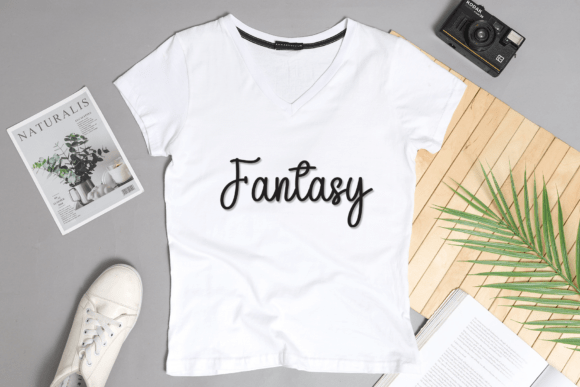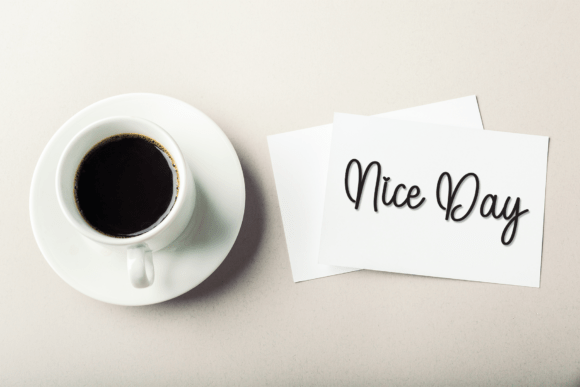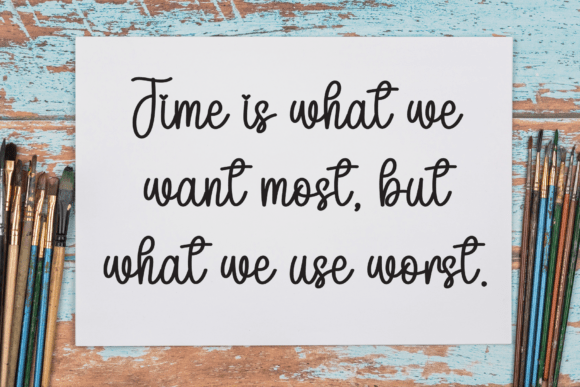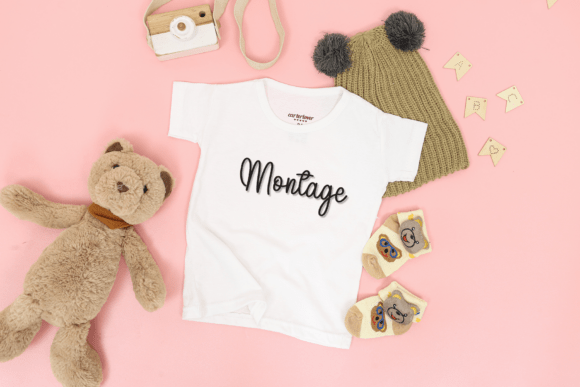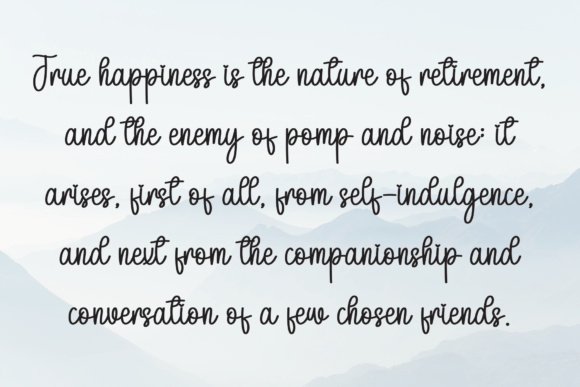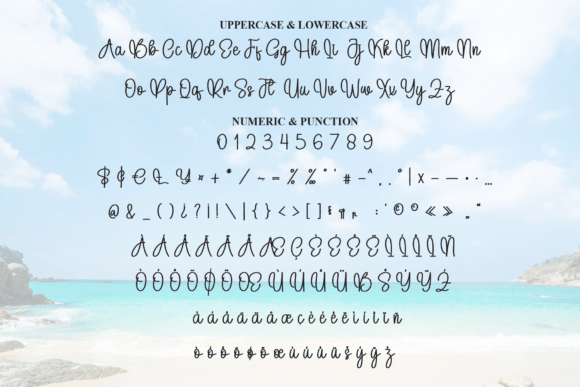
Introducing Beach Font: A Sweet and Friendly Handwritten Display Font
Are you looking for a font that can add a touch of warmth and personality to your projects? Look no further than the Sweet and Friendly Handwritten Display Font, also known as Beach Font. This charming typeface is perfect for designers and crafters who want to create unique and eye-catching designs that stand out from the crowd.
The Perfect Font for Whimsical Designs
The Sweet and Friendly Handwritten Display Font is a playful and endearing font that is ideal for crafting wedding invitations, greeting cards, and other designs that require a dash of whimsy. Its handwritten style introduces an authentic, intimate feel that can elegantly transform your ordinary projects into extraordinary masterpieces.
Key Features of Beach Font
• Handwritten style: The Sweet and Friendly Handwritten Display Font boasts a beautiful handwritten style that adds a personal touch to your designs.
• Playful and endearing appeal: This font has a playful and endearing appeal that makes it perfect for designs that require a touch of whimsy.
• Perfect for wedding invitations and greeting cards: The font’s elegant and intimate feel makes it ideal for crafting wedding invitations and greeting cards.
• Easy to read: The font is easy to read, making it perfect for designs that require a clear and legible font.
Why Choose Beach Font?
There are many reasons why you should choose the Sweet and Friendly Handwritten Display Font for your projects. Here are a few:
• Unique and eye-catching: This font is unique and eye-catching, making it perfect for designers and crafters who want to create designs that stand out from the crowd.
• Personal touch: The font’s handwritten style adds a personal touch to your designs, making them more relatable and engaging.
• Versatile: The font is versatile and can be used for a variety of projects, including wedding invitations, greeting cards, and other designs.
How to Use Beach Font
Using the Sweet and Friendly Handwritten Display Font is easy. Here are a few tips:
• Pair it with other fonts: Pair the font with other fonts to create a unique and eye-catching design.
• Use it for headings and titles: Use the font for headings and titles to add a touch of whimsy and personality to your designs.
• Experiment with different colors: Experiment with different colors to find the perfect combination that matches your design.
Here are a few tips for designers and crafters who want to get the most out of the Sweet and Friendly Handwritten Display Font:
• Keep it simple: Keep your design simple and elegant to let the font shine.
• Be creative: Don’t be afraid to experiment and try new things.
• Use high-quality images: Use high-quality images to ensure that your design looks professional and polished.
The Sweet and Friendly Handwritten Display Font, also known as Beach Font, is a charming and versatile font that can add a touch of warmth and personality to your projects. Its handwritten style, playful and endearing appeal, and ease of use make it perfect for designers and crafters who want to create unique and eye-catching designs. Whether you’re crafting wedding invitations, greeting cards, or other designs, this font is sure to enchant your audience with its lovely allure.